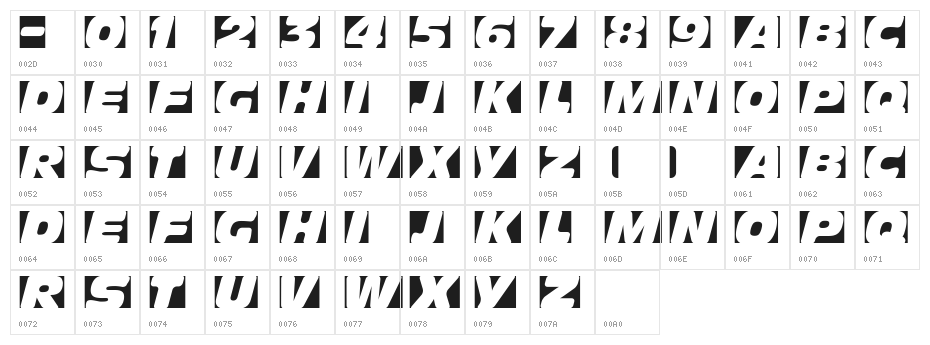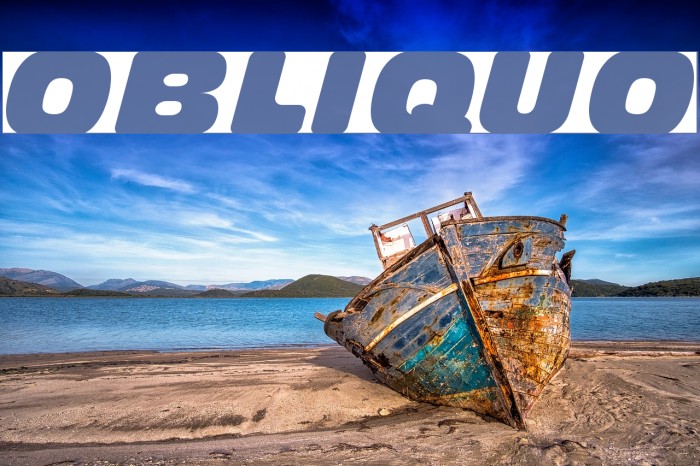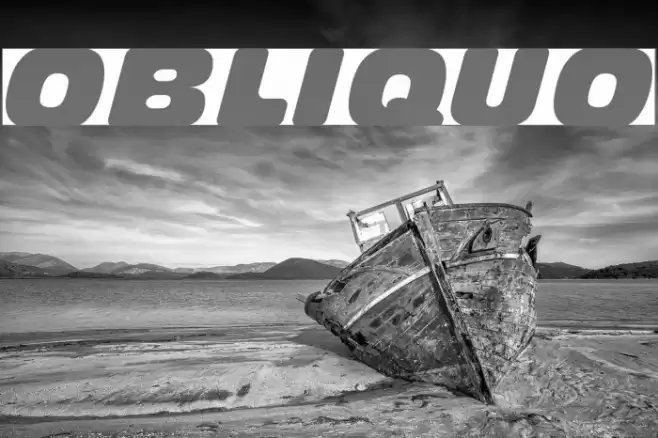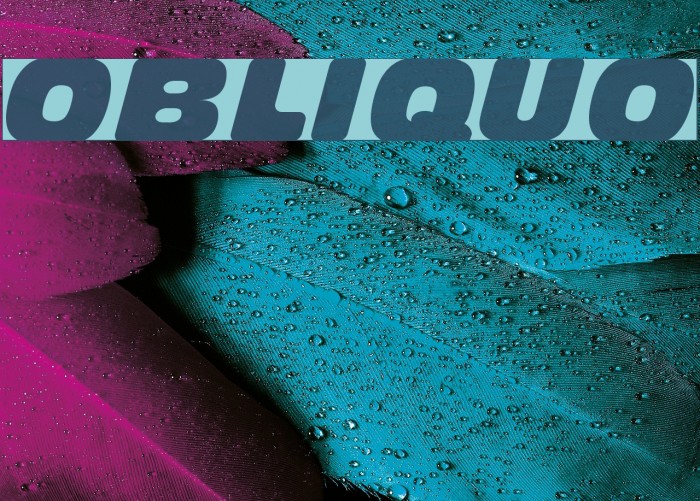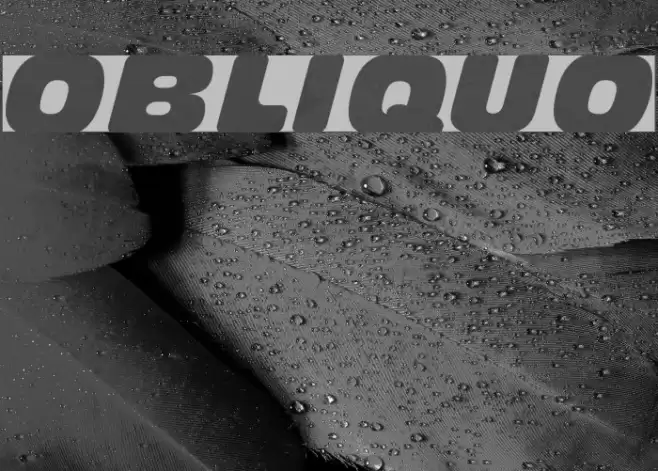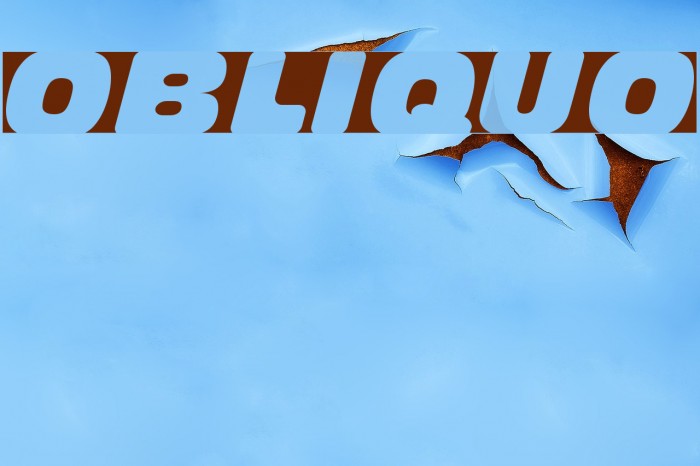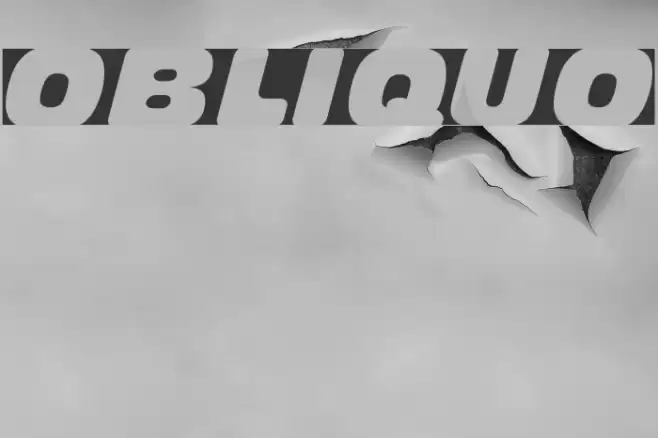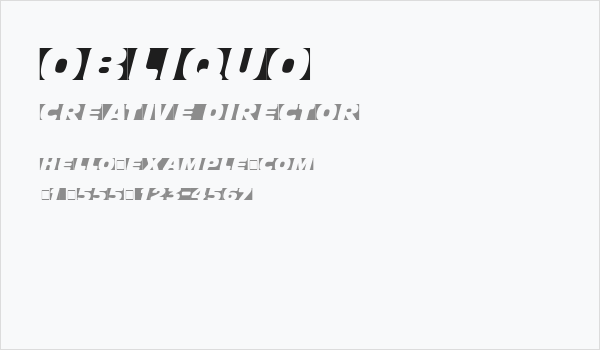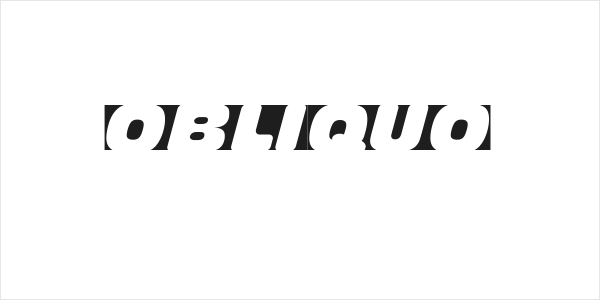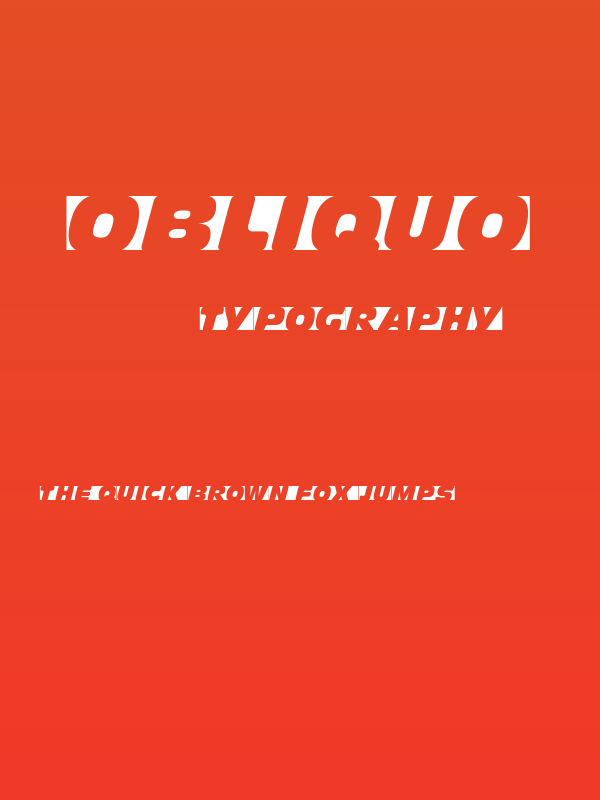
Obliquo Font
Obliquo Description
This font features a bold and dynamic style with a strong emphasis on geometric shapes and sharp angles. The characters are heavily stylized, with a distinct slant that gives a sense of motion and speed. The uppercase and lowercase letters maintain a consistent design, with unique cutouts and contrasting thick and thin lines that create a striking visual impact. The numbers and special characters follow the same design principles, ensuring a cohesive look across all glyphs. This font is ideal for projects that require a modern and edgy aesthetic.
| Proposed Projects | Ideal for branding, posters, and any design that needs a modern, edgy look. |